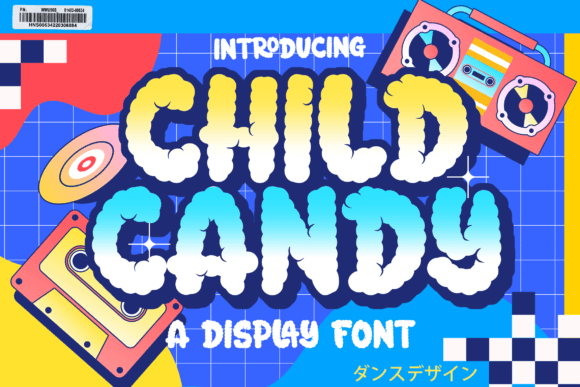
Introducing Child Candy Font: The Ultimate City Pop Display Font for Retro-Urban Designs
In the world of typography, fonts play a crucial role in conveying the tone and aesthetic of a brand, product, or design. For those seeking a unique and eye-catching font that embodies the essence of retro-urban style, look no further than Child Candy Font. This highly detailed City Pop Display Font is poised to elevate your designs, branding, and visual identity to new heights.
What is Child Candy Font?
Child Candy Font is a distinct and stylish City Pop Display Font that draws inspiration from the vibrant and eclectic world of urban design. With its intricate details and bold aesthetic, this font is perfect for those who want to add a touch of nostalgia and playfulness to their designs.
Characterized by its rounded edges, smooth curves, and chunky lines, Child Candy Font exudes a sense of fun and whimsy. Its unique design makes it an excellent choice for a wide range of applications, from logos and branding to apparel designs and more.
The Versatility of Child Candy Font
One of the standout features of Child Candy Font is its versatility. This font can be used in various contexts, from:
• Exquisite retro-urban designs: Add a touch of nostalgia to your designs with Child Candy Font’s retro-inspired aesthetic.
• Business branding: Create a memorable and distinctive brand identity with this eye-catching font.
• Logos: Make your logo stand out with Child Candy Font’s bold and playful design.
• Apparel designs: Create stylish and eye-catching apparel designs that showcase your personality or brand.
Why Choose Child Candy Font?
With so many fonts available, why choose Child Candy Font? Here are just a few reasons:
• Unique design: Child Candy Font boasts a distinctive and highly detailed design that sets it apart from other fonts.
• High legibility: Despite its intricate details, Child Candy Font remains highly legible, even at smaller sizes.
• Flexibility: Use Child Candy Font in a variety of contexts, from digital designs to print materials.
Tips for Using Child Candy Font
To get the most out of Child Candy Font, consider the following tips:
• Experiment with colors: Child Candy Font looks great in a variety of colors, so don’t be afraid to experiment and find the perfect hue for your design.
• Mix and match: Combine Child Candy Font with other fonts to create a unique and visually appealing design.
• Pay attention to size: While Child Candy Font is highly legible, it’s essential to ensure that it’s used at a suitable size for your design.
In conclusion, Child Candy Font is an exceptional City Pop Display Font that offers a unique blend of style, versatility, and legibility. Whether you’re a designer, entrepreneur, or simply someone who appreciates great typography, this font is sure to impress.